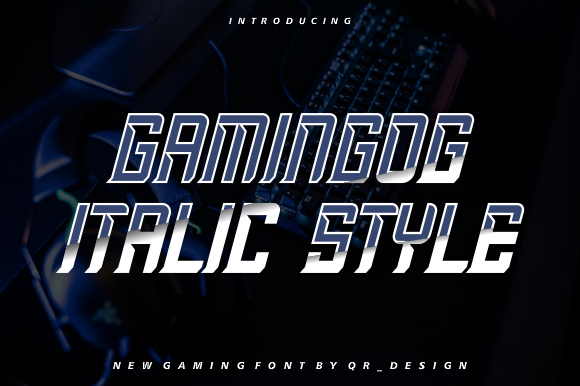
Enter the captivating realm of Gamingog, a bold and authentic display font that ignites creativity and transports you to a world of limitless possibilities. Crafted by the ingenious qrdesignstd, Gamingog is more than just a font; it's an artistic statement that embodies the very essence of gaming and entertainment.
Immerse yourself in the dynamic world of Gamingog, where every letter is a bold stroke of genius. Its striking and legible presence commands attention, making it the perfect choice for game branding, logos, posters, and any project that demands an unforgettable visual impact. Gamingog's distinctive charm and effectiveness lie in its ability to captivate and engage audiences, leaving a lasting impression that resonates long after the final pixel fades.
Unleash your creativity and embark on an extraordinary typographic adventure with Gamingog. Its versatility knows no bounds, seamlessly adapting to a multitude of creative projects. Whether you're a seasoned designer or just starting your artistic journey, Gamingog will elevate your designs to new heights, adding a touch of magic and wonder to every concept.
Embrace the boundless potential of Gamingog and transform your creative visions into reality. Its enchanting aura will captivate your audience, leaving them spellbound and eager for more. Dare to be different, dare to be bold, and let Gamingog be your guide into the realm of unforgettable typography.